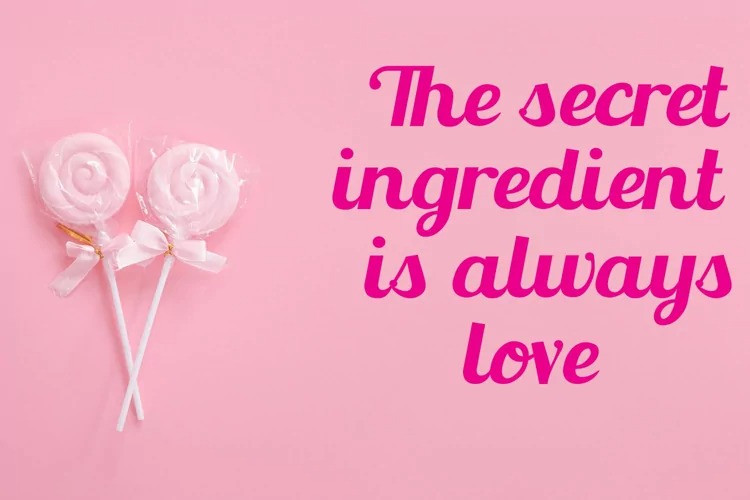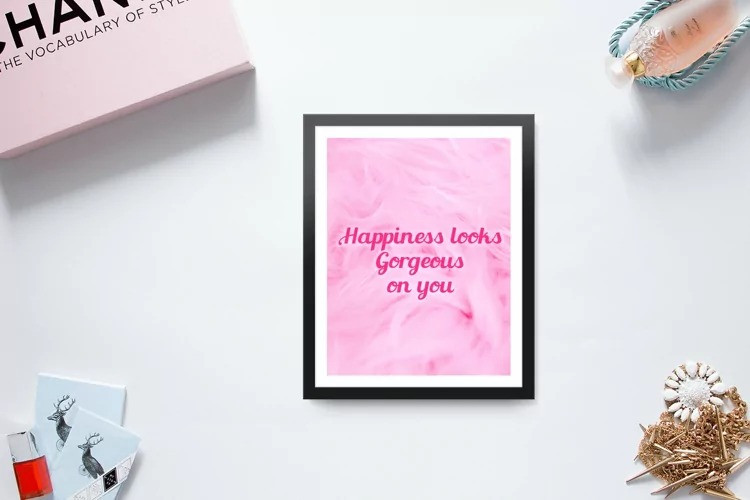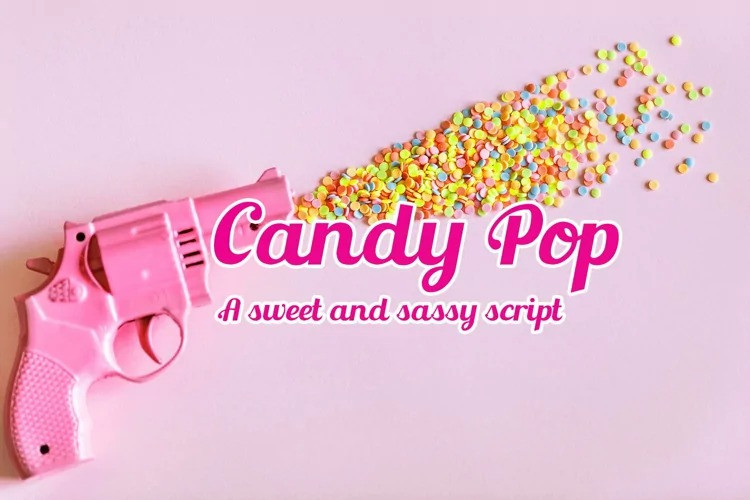
Candy Pop Font
Candy Pop is a sweet and sassy script inspired by retro candy packaging.
This fun font is perfect for logos, packaging, invitations and more! Use it on t-shirts or prints for your home or to sell – the only limit is pure imagination!